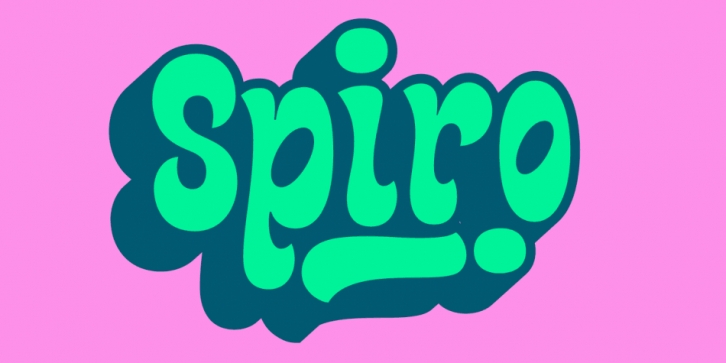
Spiro is a dingbat and brush script font family. This typeface has eight styles and was published by Rodrigo Typo.
Based on the retro, inspired by a series called “The Boatniks” this typeface has a lot to do with the Hippie, with the toys and series of the 60s -70 -80, this entertaining typography contains a set of shadows of Left and Right the same for Ornaments, this typography was designed with a lot of love.
Spiro Regular·
Spiro Shadow Left·
Spiro Shadow Right·
Spiro Ornament Regular·
Spiro Ornament Shadow Left·
Spiro Ornament Shadow Right·
Spiro Dingbats Regular·